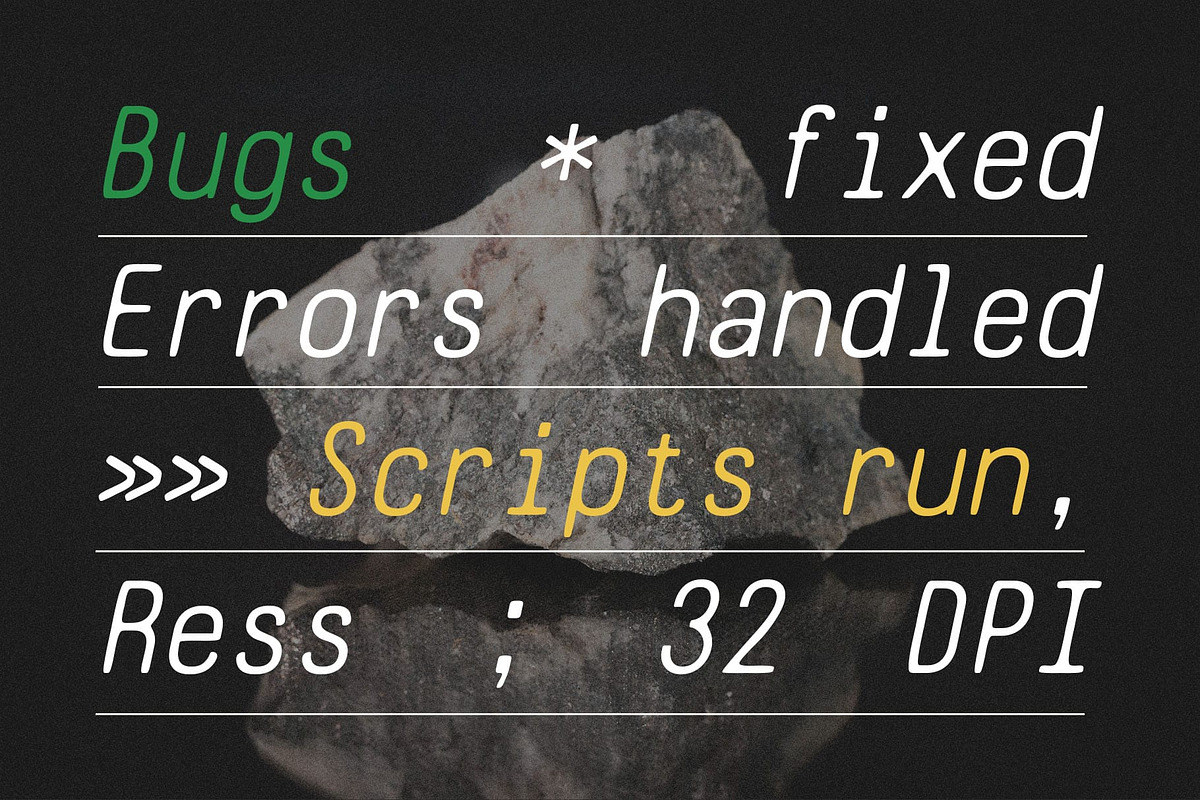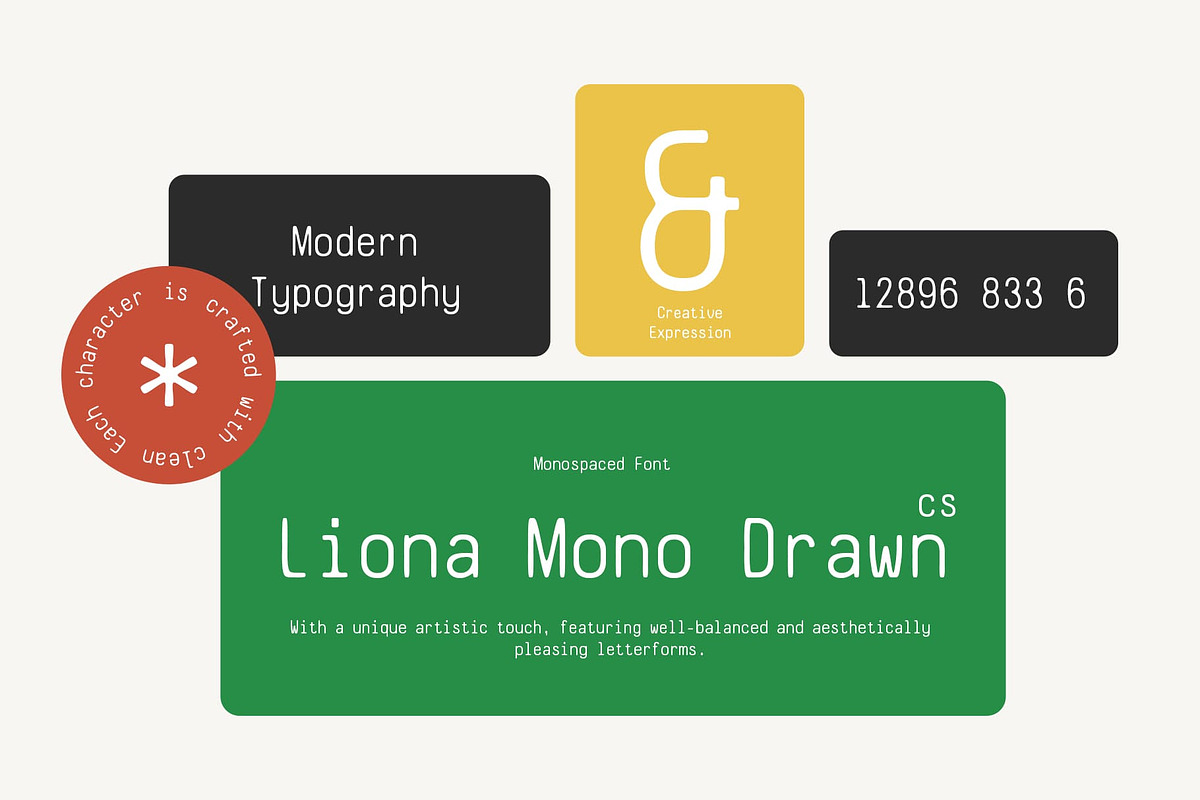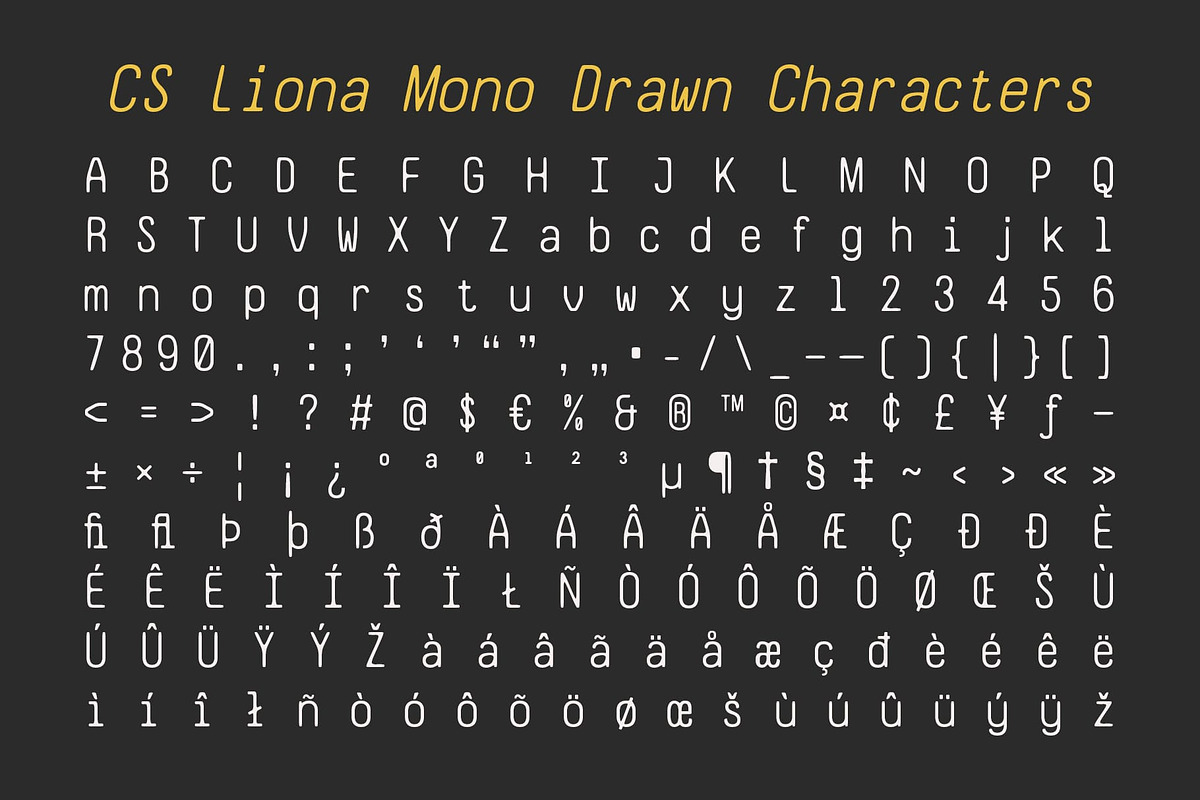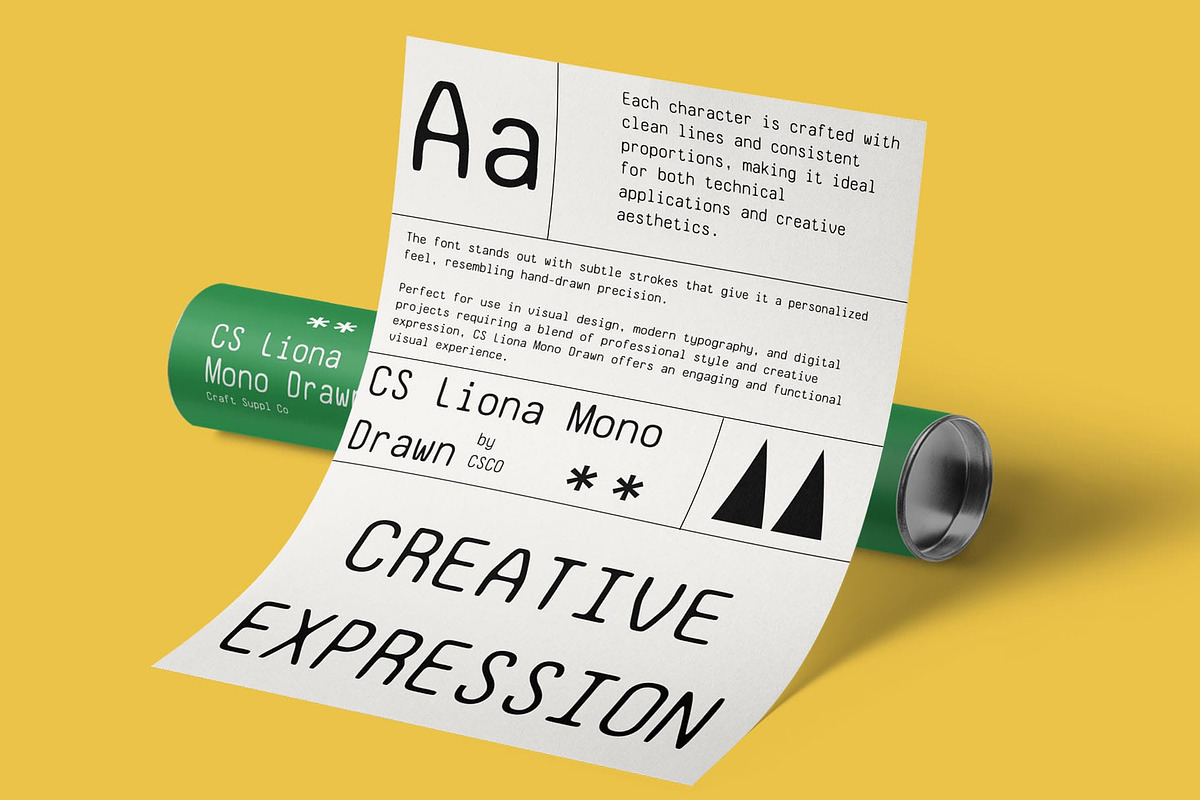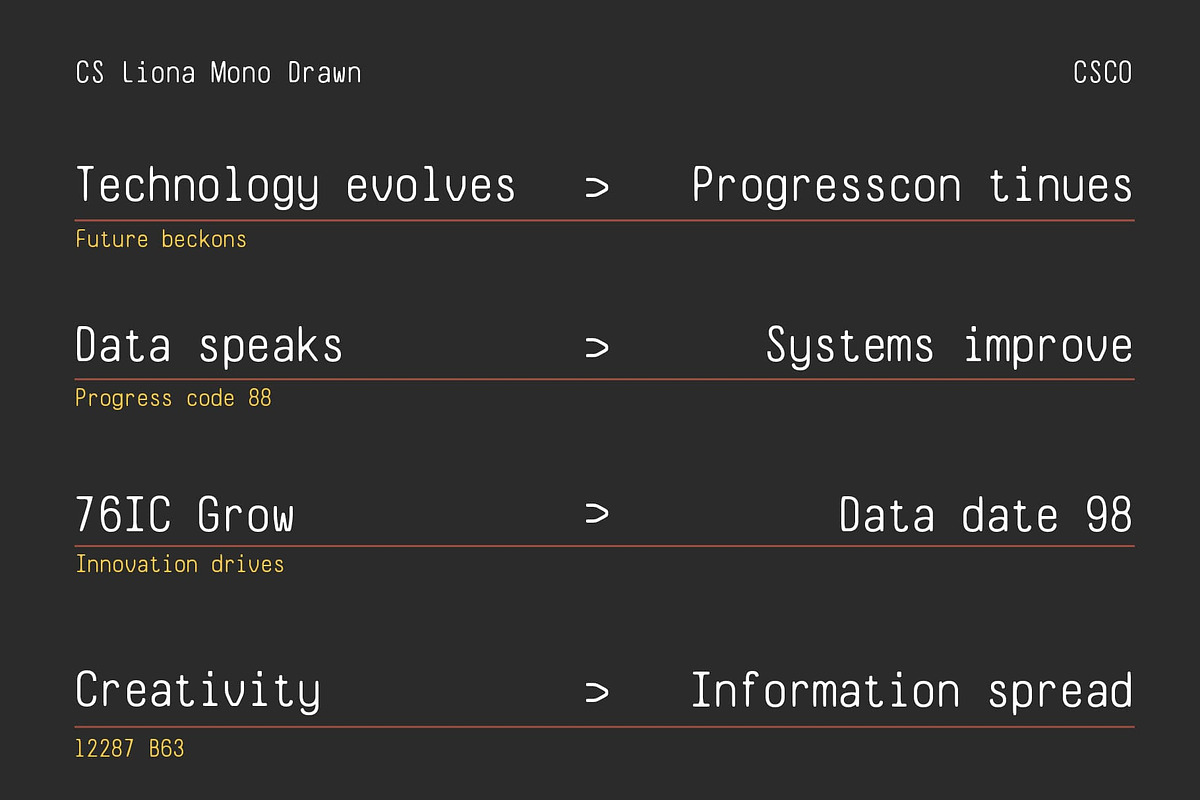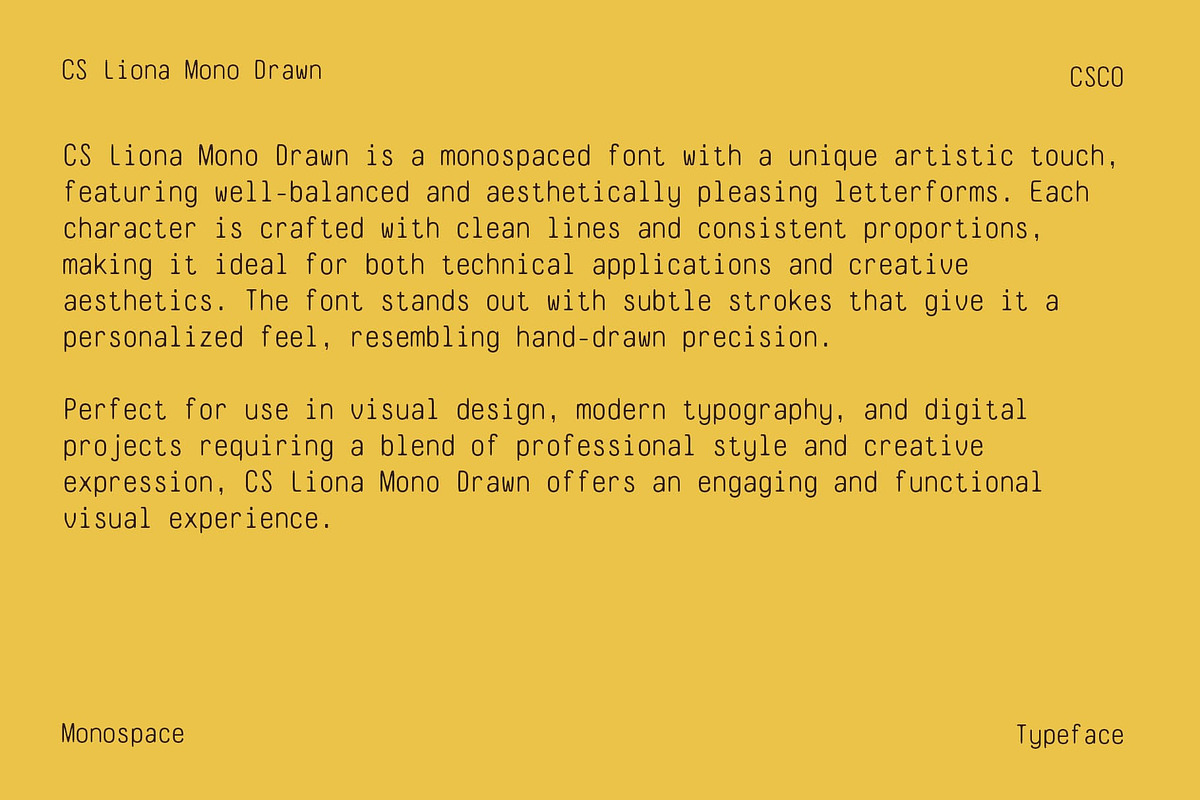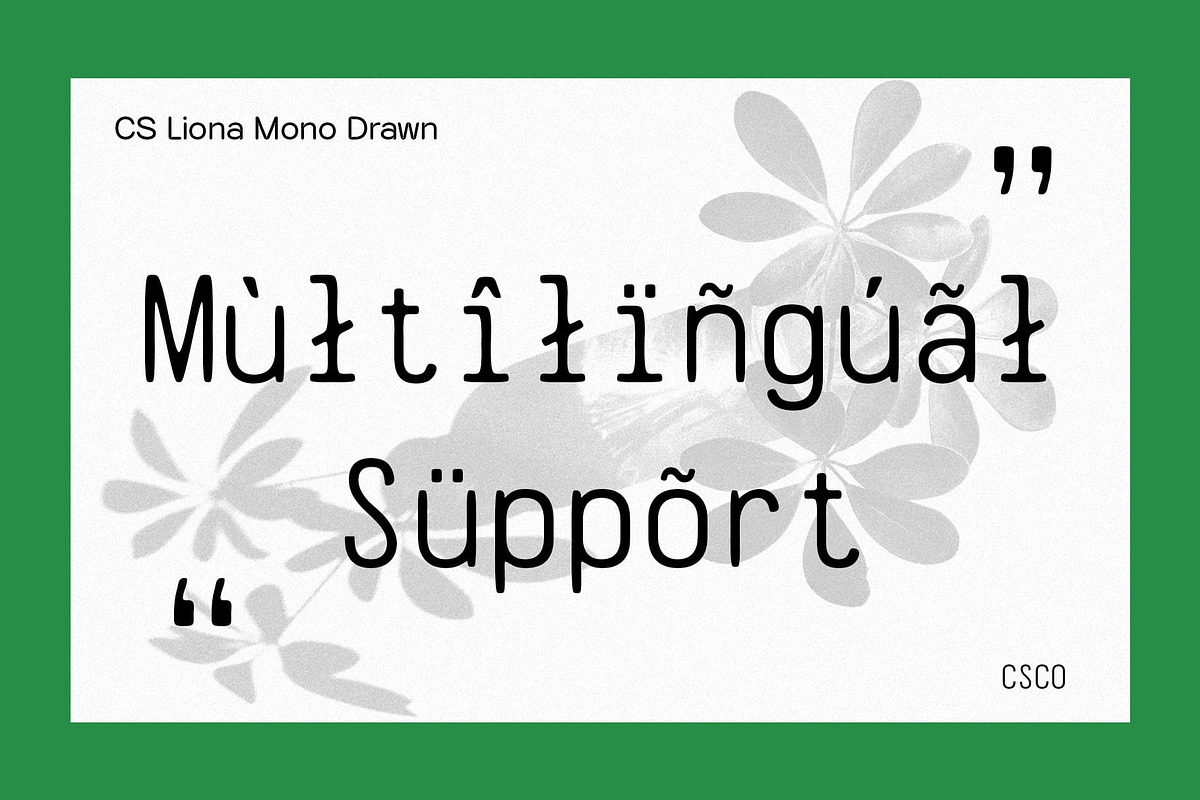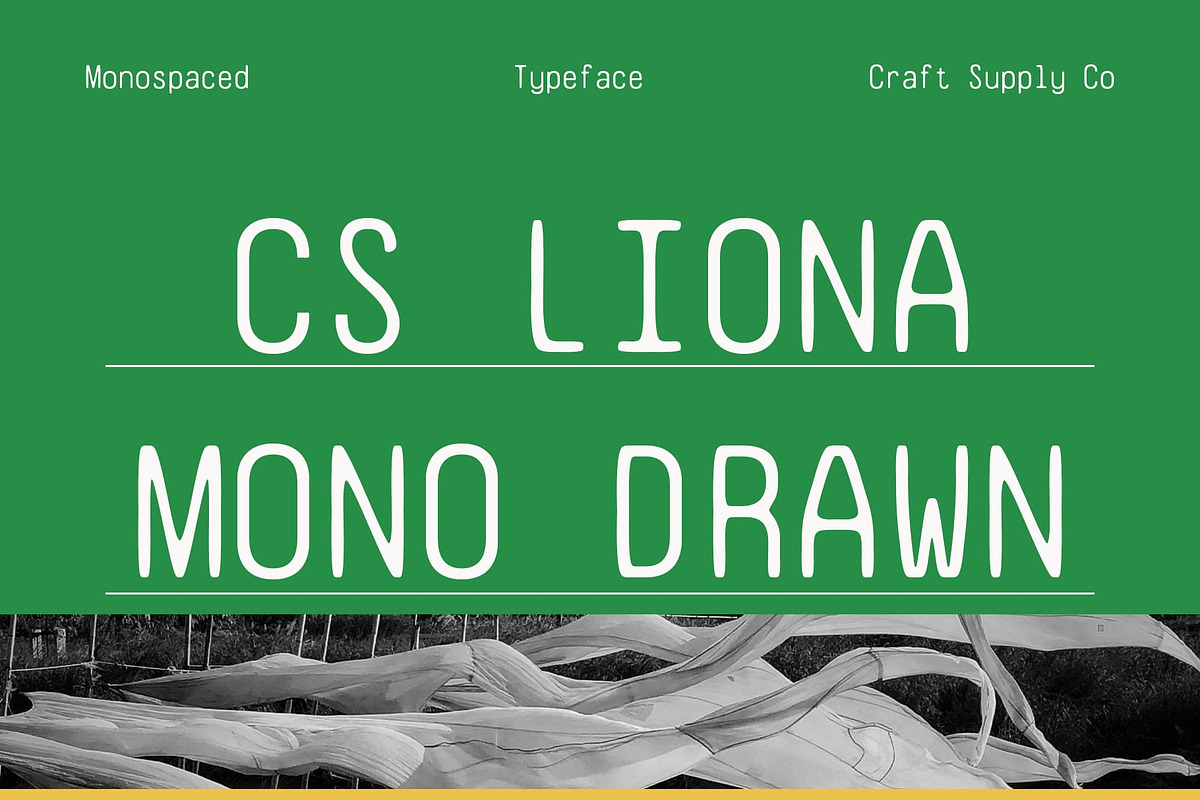
CS Liona Mono Drawn
CS Liona Mono Drawn – Precision Meets Creativity
Modern Monospaced Font with Hand-Drawn Effect This is a modern sans-serif monospaced font that effortlessly blends technical precision with artistic expression. Featuring the clarity and structure of a monospaced design, it ensures consistent spacing between characters for optimal readability. The hand-drawn effect, on the other hand, introduces a unique, personal touch, adding warmth and character to the otherwise clean and organized appearance. This combination of functionality and creativity results in a font that stands out for its versatility and charm.
Structure and Creativity Combined The monospaced structure of this sans serif font maintains a sense of order, making it ideal for projects that require consistency and legibility, such as coding, technical designs, and data visualization. At the same time, the drawn effect provides a softer, more organic feel, adding a touch of individuality and flair to the design. This balance makes it a perfect choice for projects that seek to combine structured elements with artistic, creative expression.
Versatile and Unique Design This font is a great choice for any project that requires a blend of precision and creative flair. Whether you’re designing a website, working on branding, or creating custom graphics, this monospaced font with drawn effect brings structure, readability, and artistic individuality to the forefront, offering a fresh take on the monospaced font style.